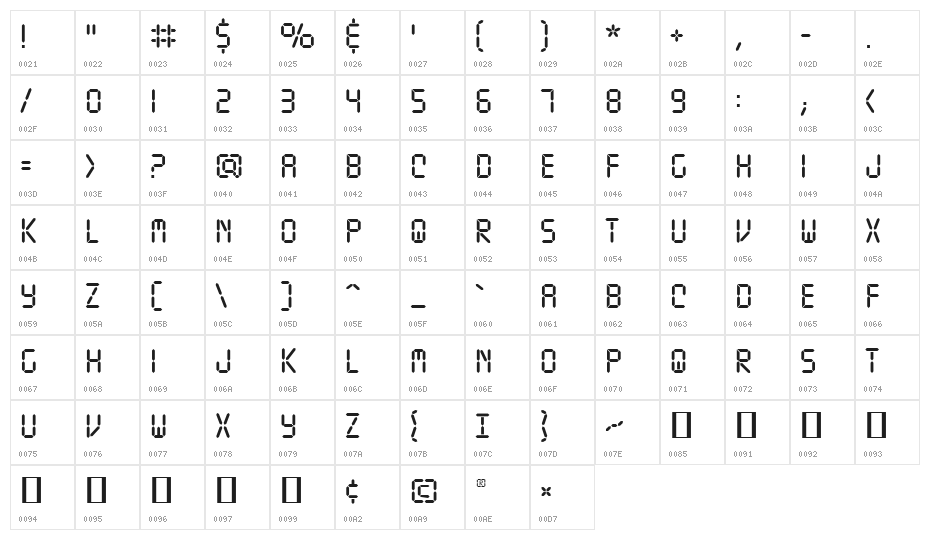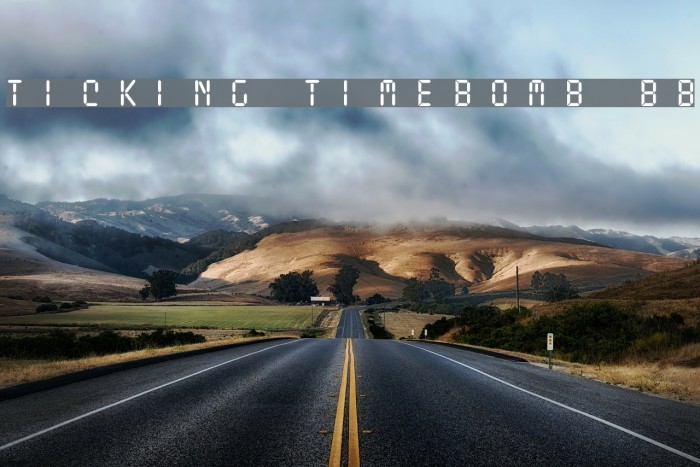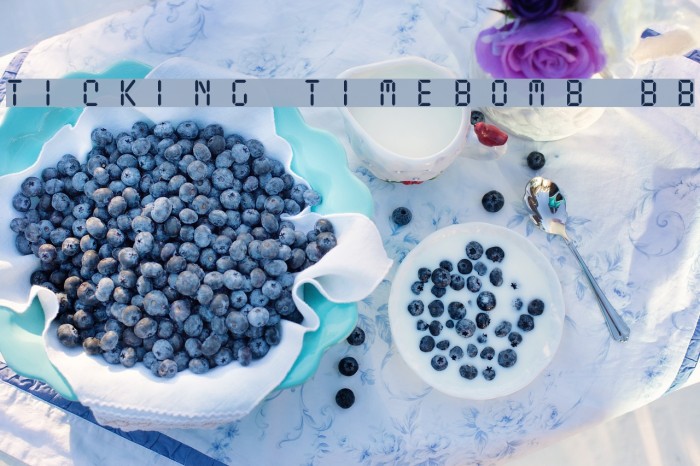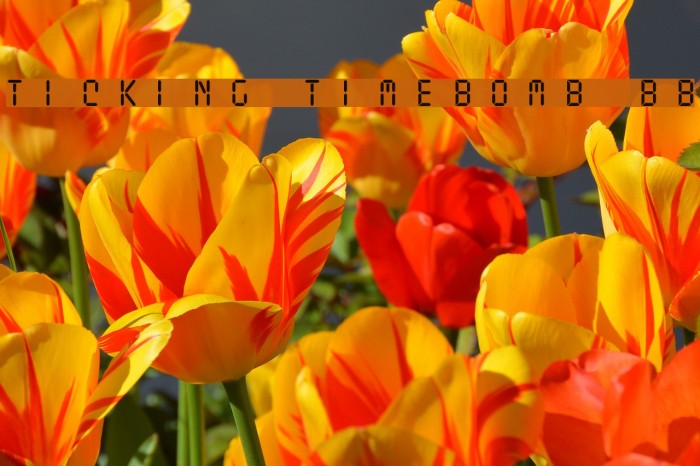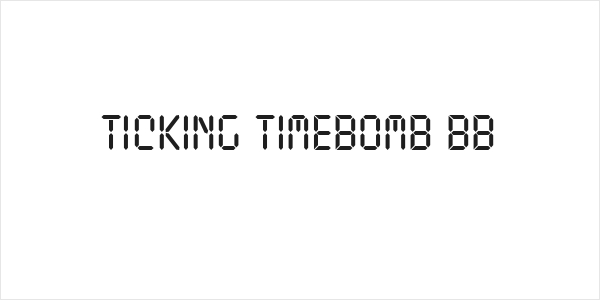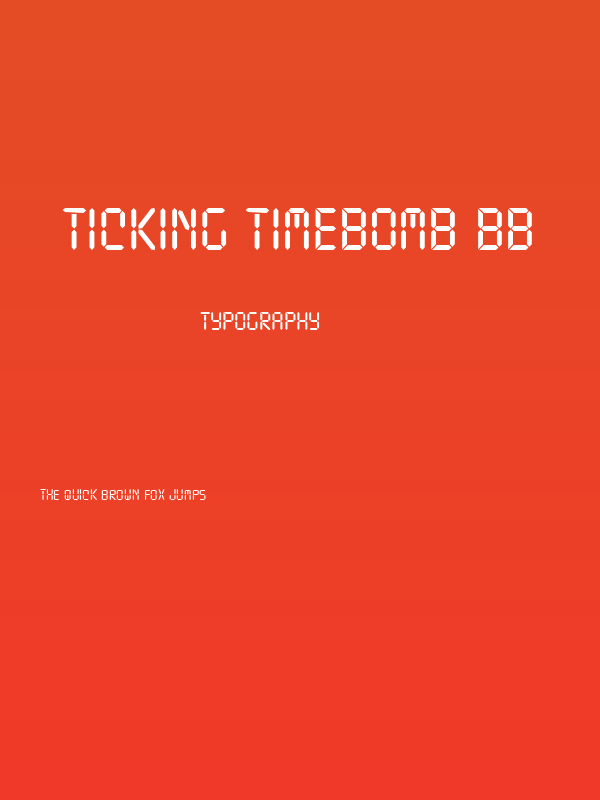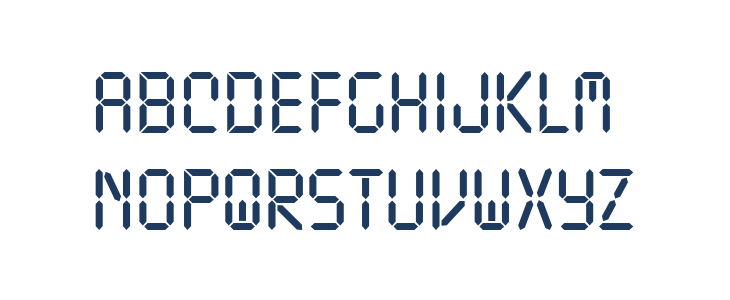
Ticking Timebomb BB Font
Ticking Timebomb BB Description
This font features a digital, segmented style reminiscent of LED displays or digital clocks. Each character is composed of distinct, geometric segments that form a cohesive, futuristic appearance. The design is clean and structured, with a uniform width across all characters, creating a consistent and balanced look. The font's angular and mechanical aesthetic makes it ideal for conveying a sense of modernity and technology. It is particularly effective in contexts where a digital or technical theme is desired, such as in tech branding, digital interfaces, or futuristic designs.
| Use Case | Headlines, Logos, Digital Displays |
| Proposed Projects | Ideal for tech branding, digital interfaces, futuristic designs, and any project requiring a modern, digital aesthetic. |